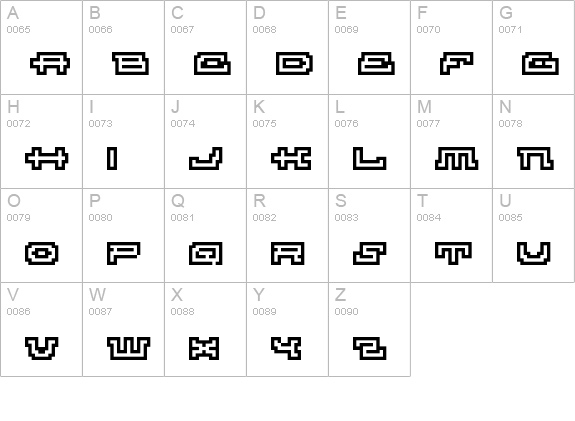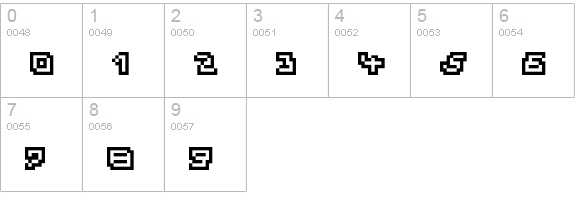
The Atomic-Outline font is a sleek and modern typeface that exudes a sense of sophistication and style. With its clean lines and minimalist design, this font is perfect for creating eye-catching headers, titles, and logos. The thin, outline style of the letters gives off a futuristic and high-tech vibe, making it ideal for projects that require a contemporary touch. What sets the Atomic-Outline font apart is that it is not only visually striking but also versatile and easy to read. Whether used in print or digital applications, this font will make your text stand out and leave a lasting impression on your audience. Best of all, the Atomic-Outline font is completely free to download at FontsMarket.com. So, if you're looking to add a touch of sophistication and modernity to your designs without breaking the bank, be sure to check out this fantastic font today.